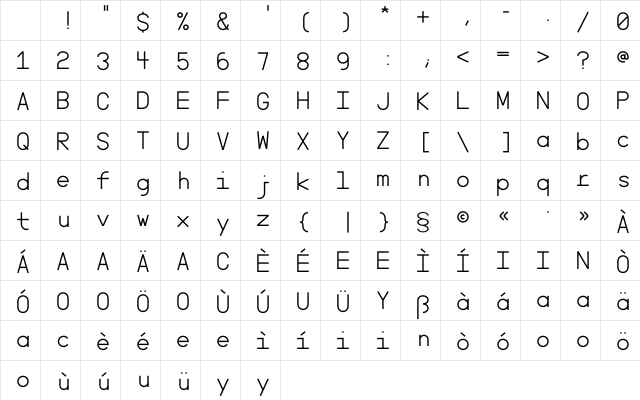
Complete Minimal Mono Regular glyph index. Displaying only characters natively supported by Minimal Mono Regular font.
Minimal Mono uses fixed-width spacing throughout, giving it the structured, systematic character associated with coding environments and technical documentation.
Pro Tip: Use Minimal Mono with slightly increased line-height for extended reading - fixed-width spacing can feel dense in longer passages without extra breathing room.